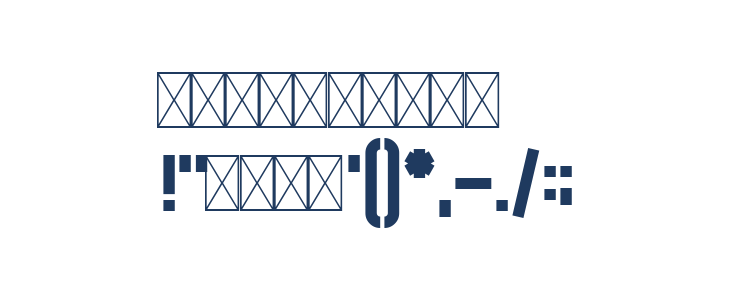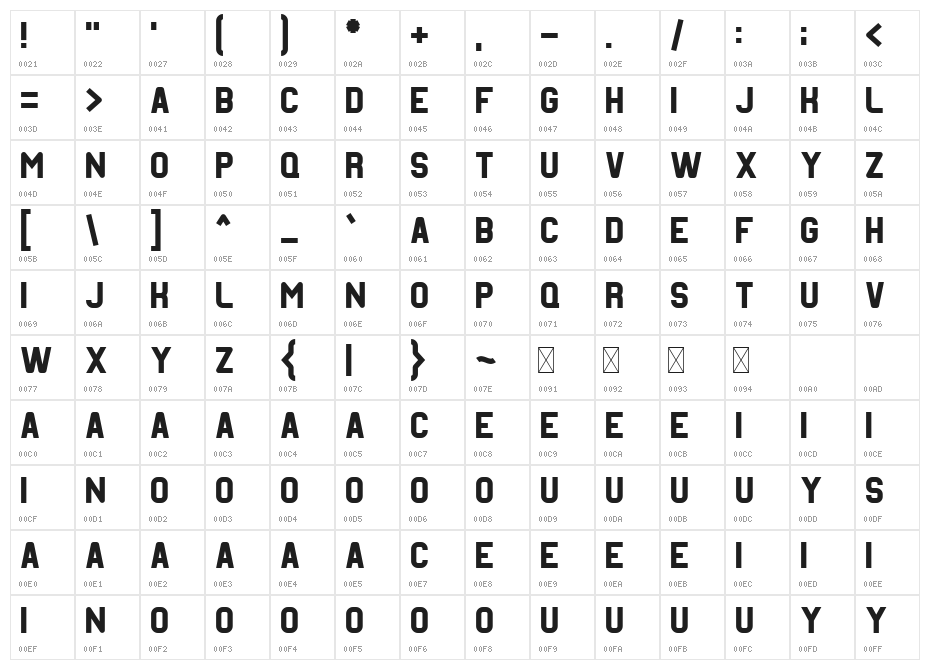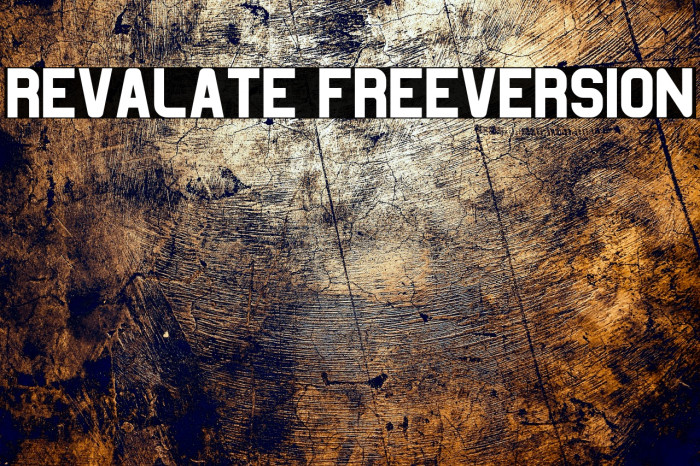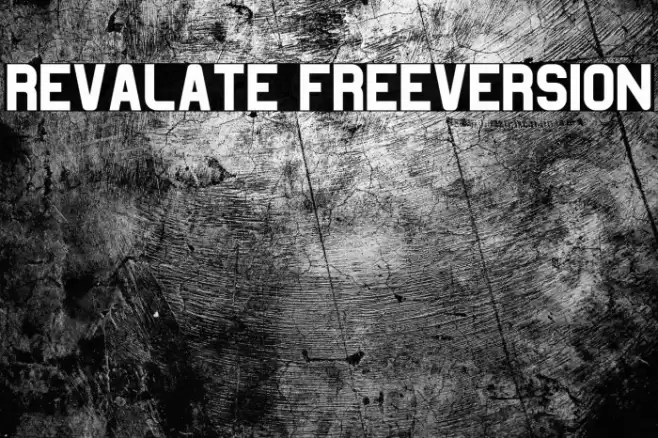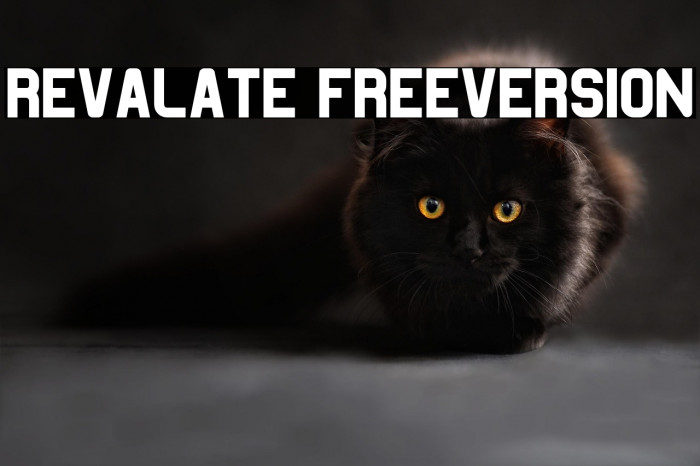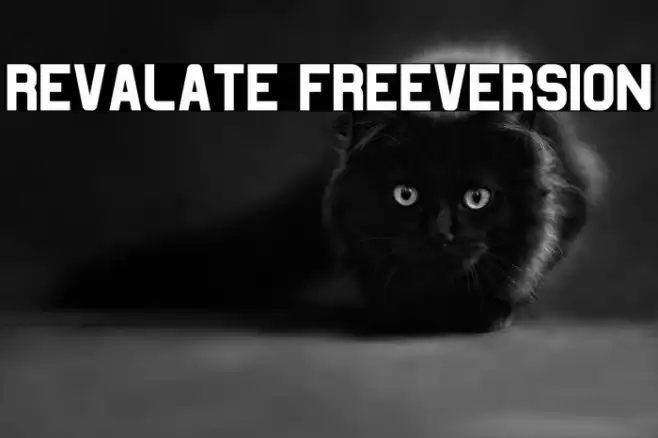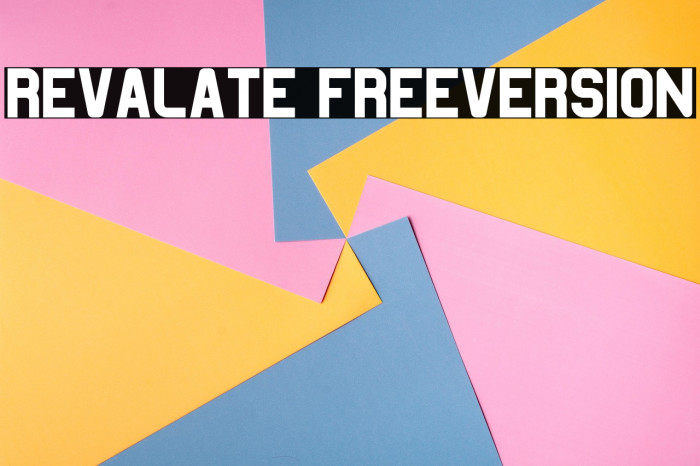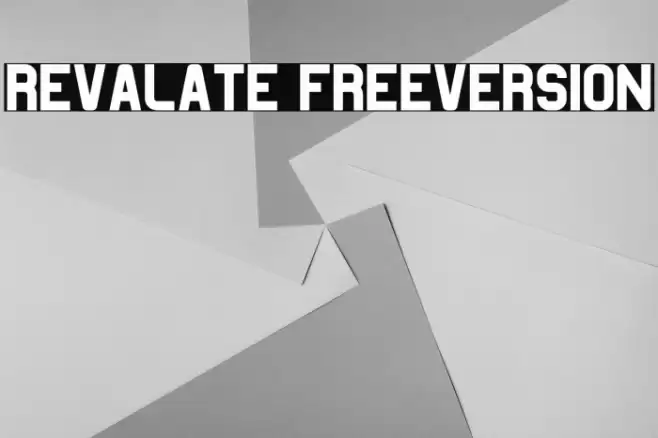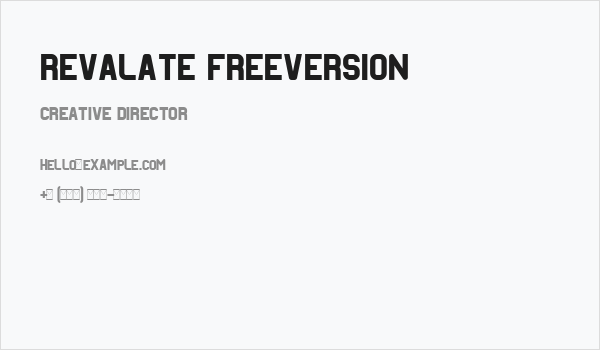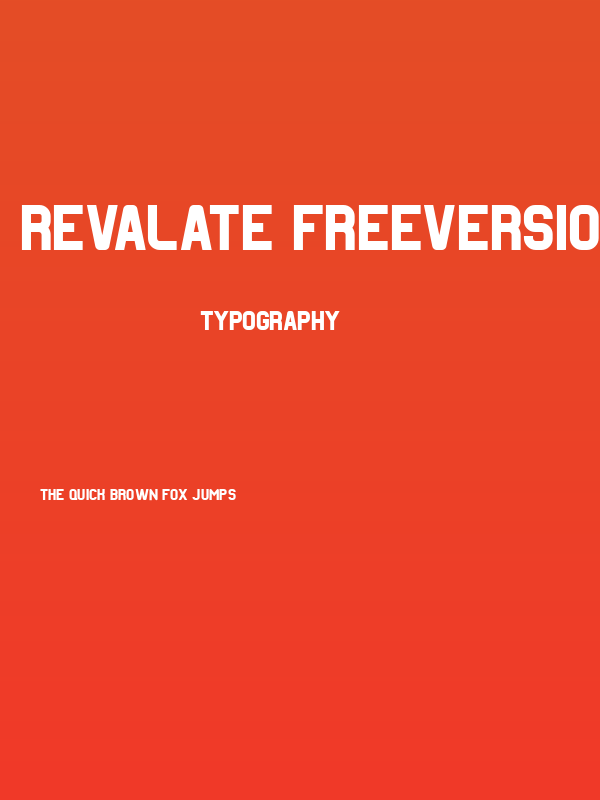
Revalate FreeVersion Font
Revalate FreeVersion Description
This font features a bold, geometric sans-serif style with a strong presence. The characters are uniformly thick, creating a consistent and powerful look. The uppercase letters are blocky and modern, with a slight industrial feel. The lowercase letters maintain the same thickness and geometric style, ensuring readability and impact. The numbers and special characters are designed to match the boldness of the alphabet, making them stand out effectively. This font is ideal for projects that require a modern and assertive typeface.